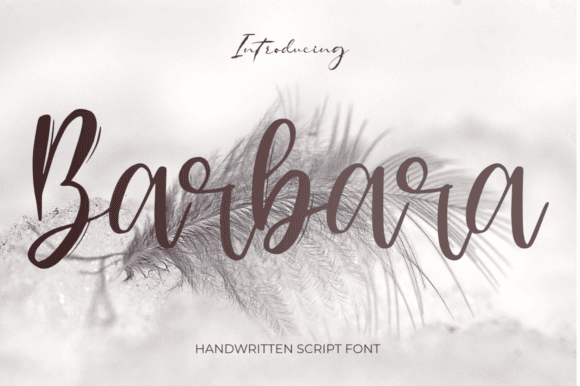
Barbara Font for Cricut, Silhouette and Printable Designs
The Barbara Font is a decorative typeface crafted for use in cutting machines and printable creations. Offered in TTF and OTF formats, it provides smooth character paths ideal for precision cutting, digital layouts, and high-resolution print output.
Designed for creators who need graceful lettering that performs in both artistic and professional contexts, Barbara is the perfect choice for vinyl decals, wedding stationery, digital templates, and more.
Whether you're making physical crafts or selling digital downloads, this font brings elegance, flexibility, and polish to every project.
- Printable cards and framed quotes
- Vinyl decals for mugs, tumblers, and walls
- Custom t-shirts, totes, and apparel
- Brand elements like logos and labels
- Editable templates for personal and commercial use
- Beautiful and functional in both print and cut formats
- Great for branding, personalization, and gift-making
- Reliable curves and spacing for smooth production
A: Yes, the Barbara Font is ideal for printables like invitations, stationery, and posters.